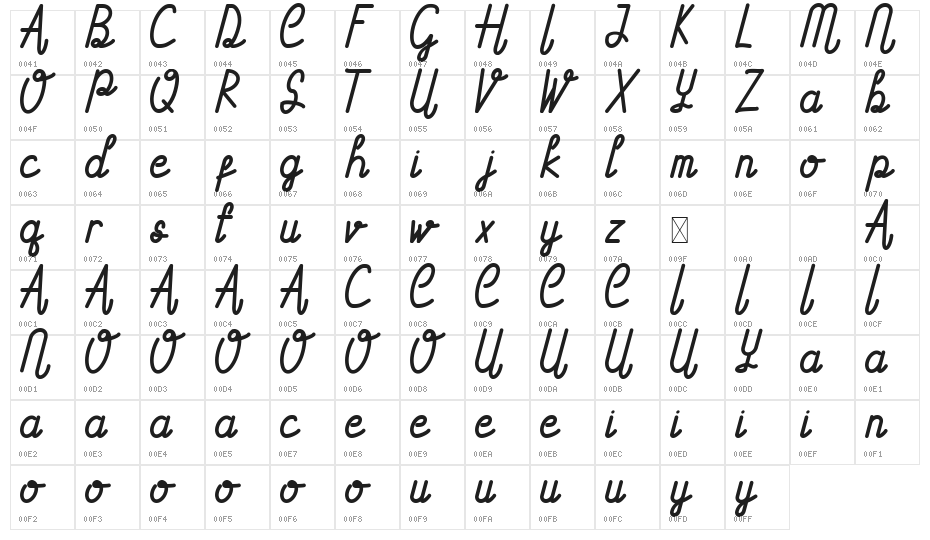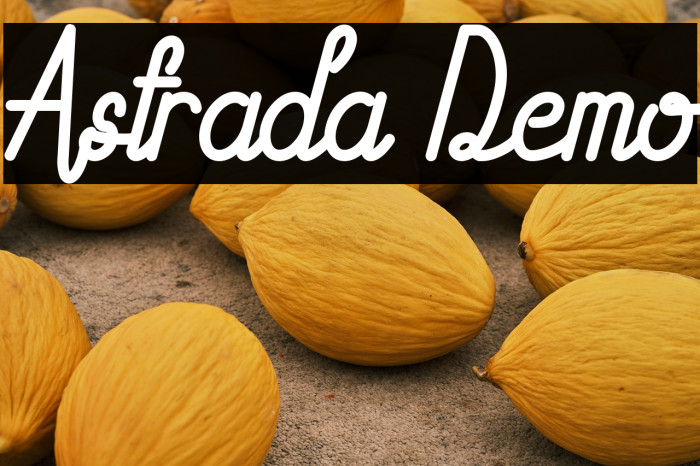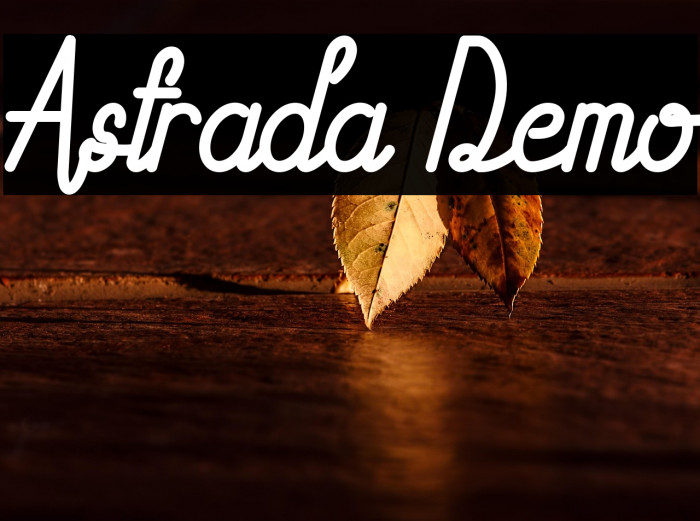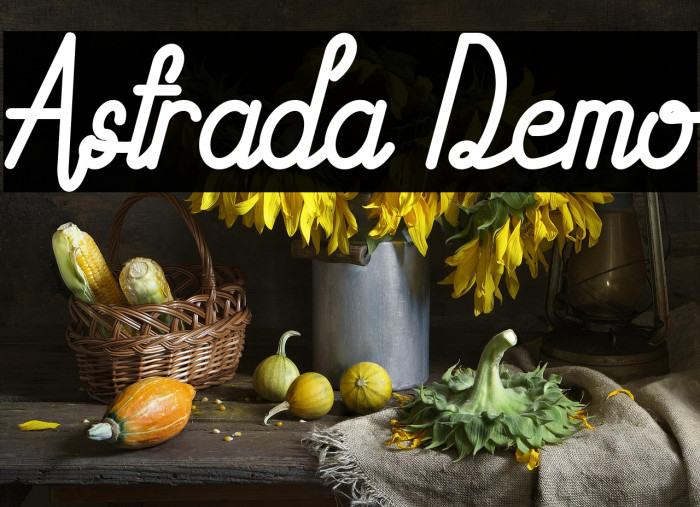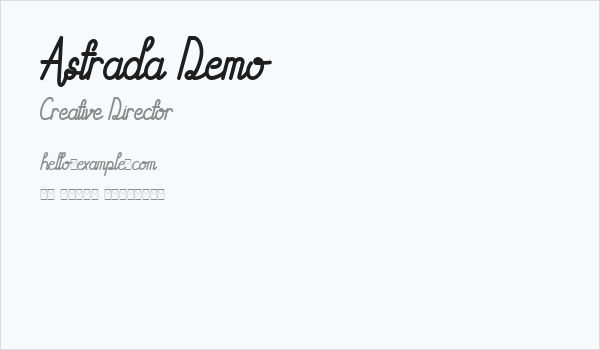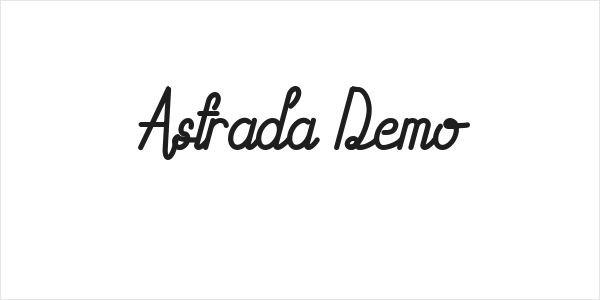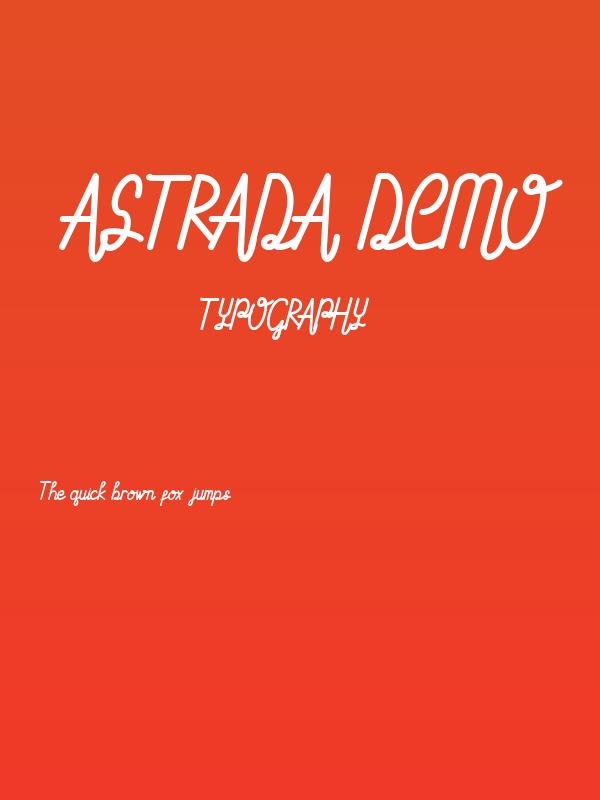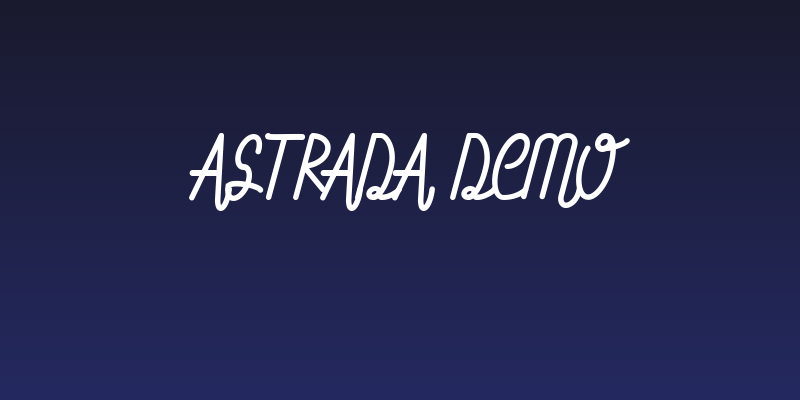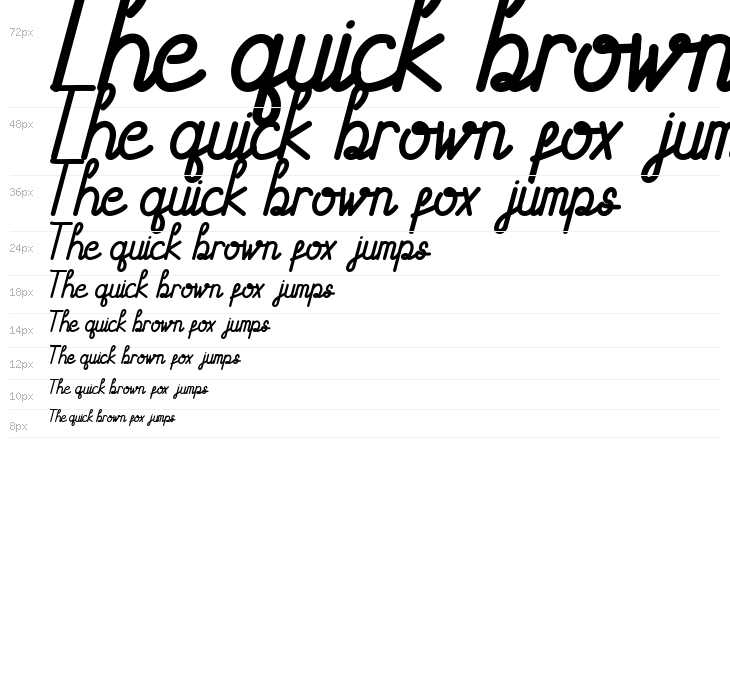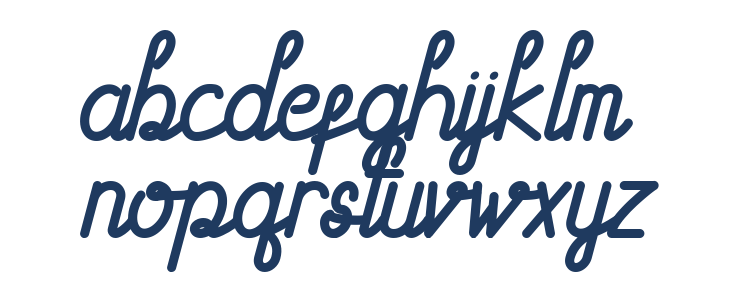
Astrada Demo Font
Astrada Demo Description
This font features a unique, flowing script style that combines elegance with a modern twist. The letters are interconnected, creating a seamless and continuous look that is both stylish and readable. The uppercase and lowercase characters maintain a consistent height, contributing to a harmonious appearance. The strokes are smooth and rounded, with a medium thickness that offers a balanced contrast. This font's design is ideal for projects that require a touch of sophistication and creativity, making it suitable for branding, invitations, and artistic endeavors.